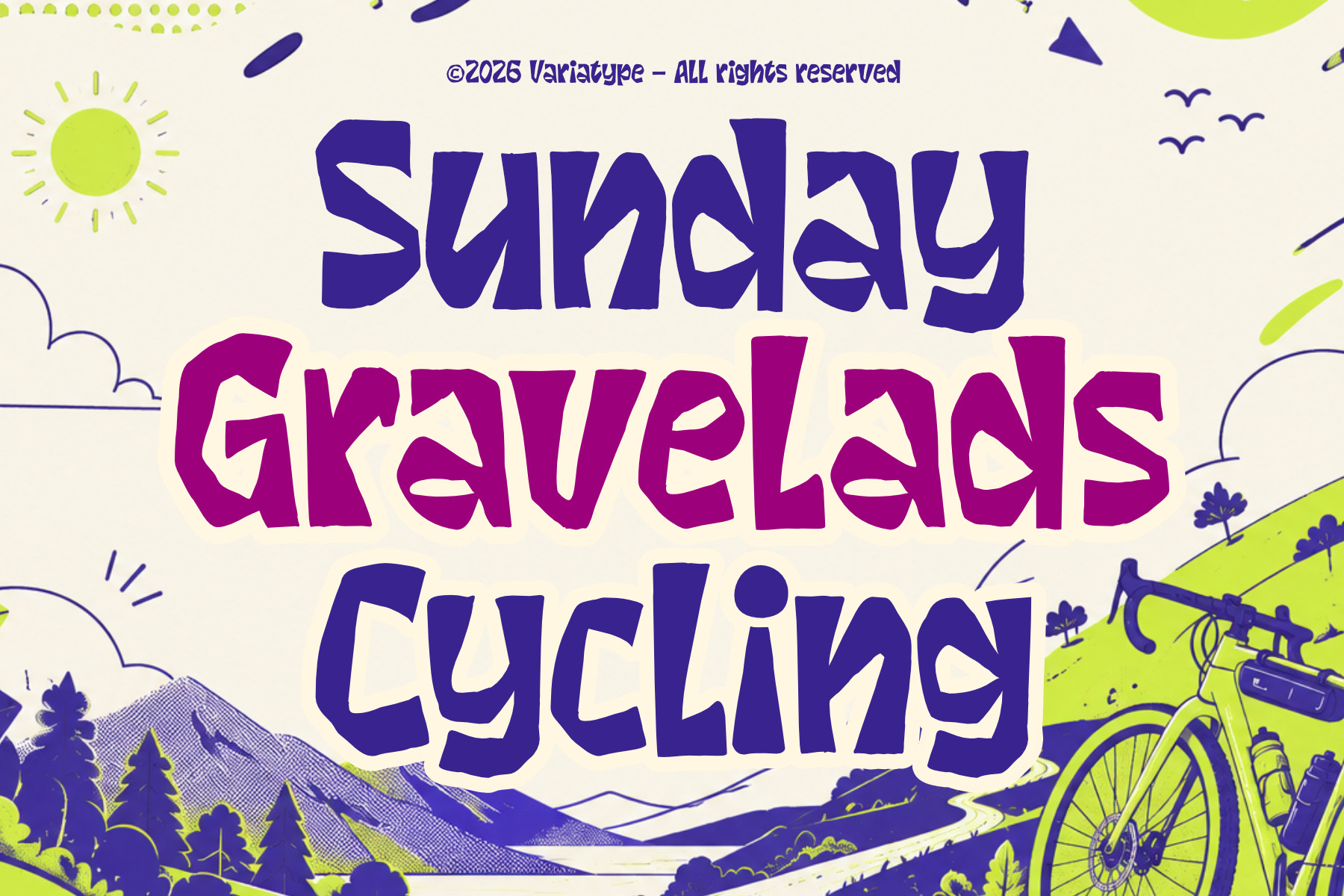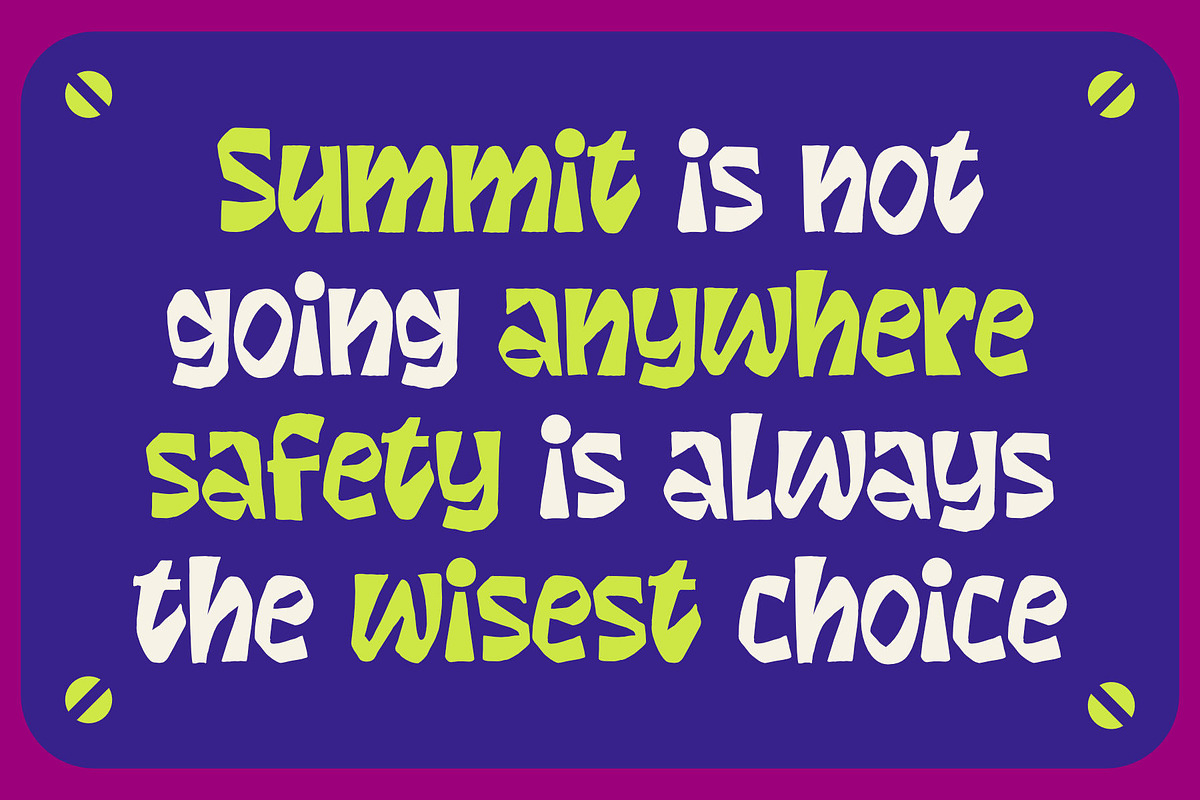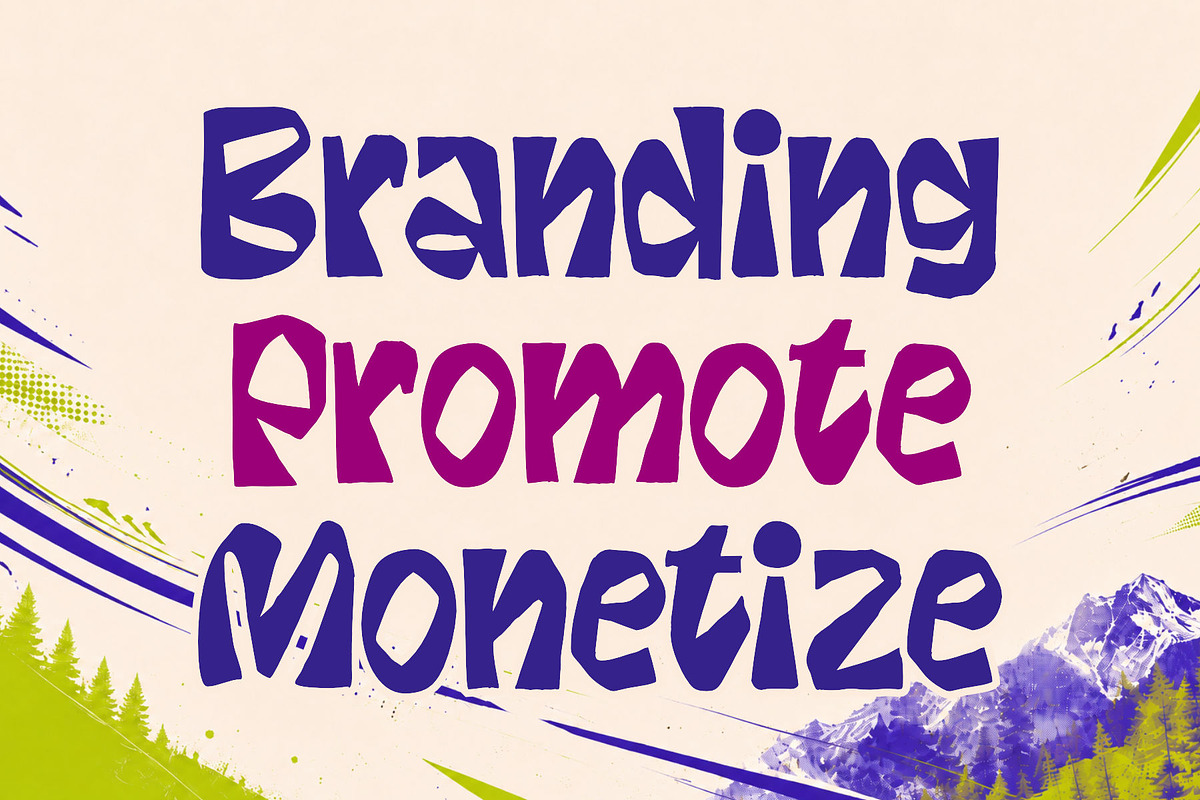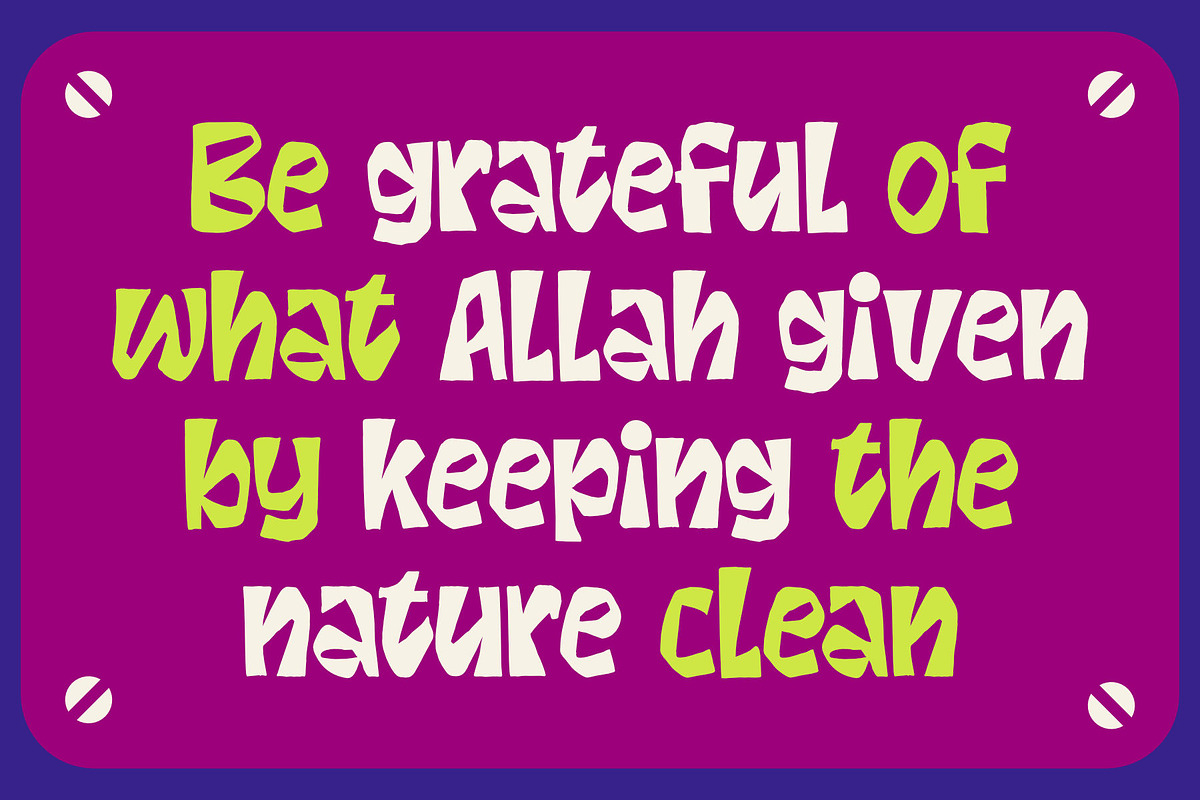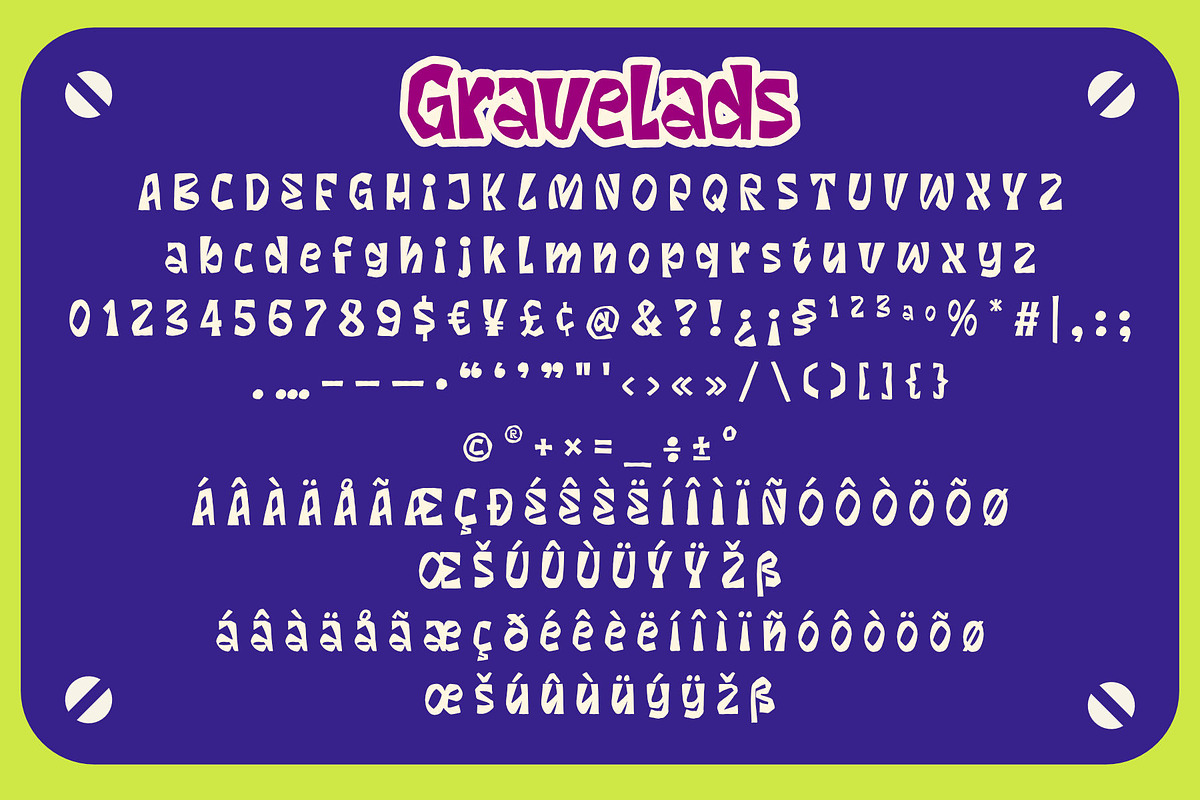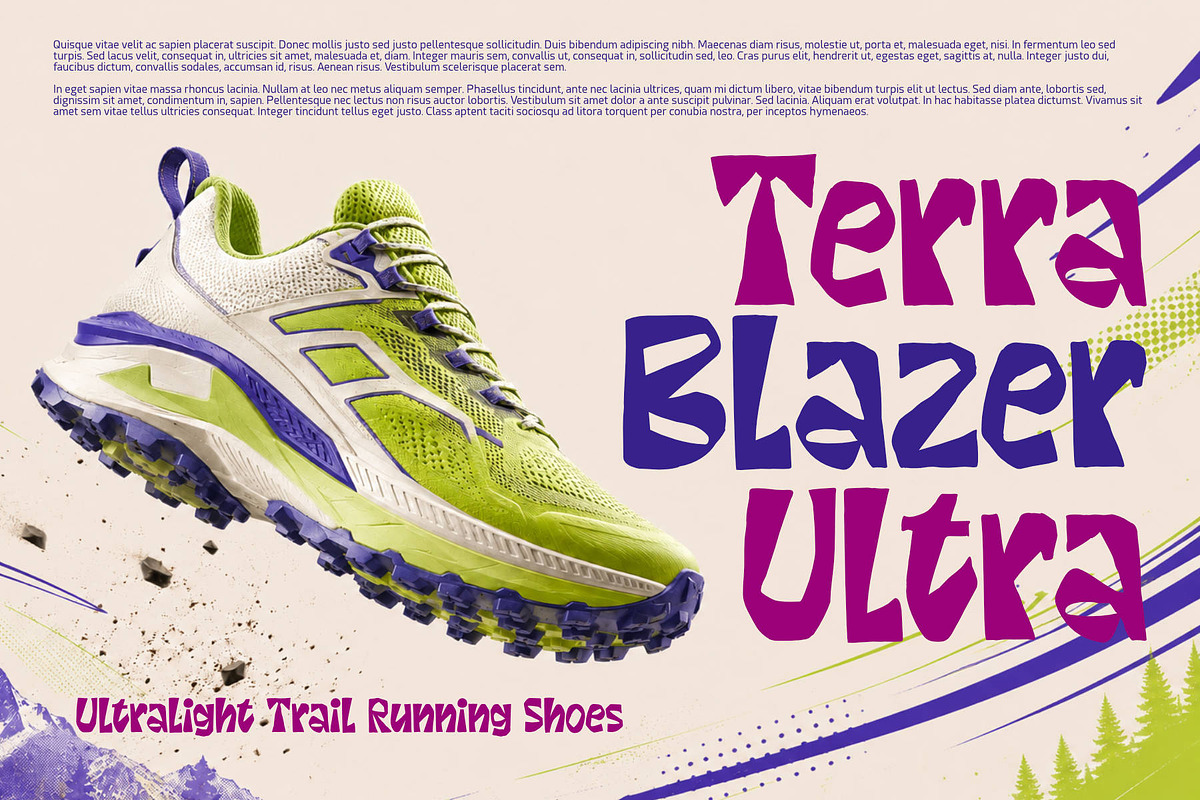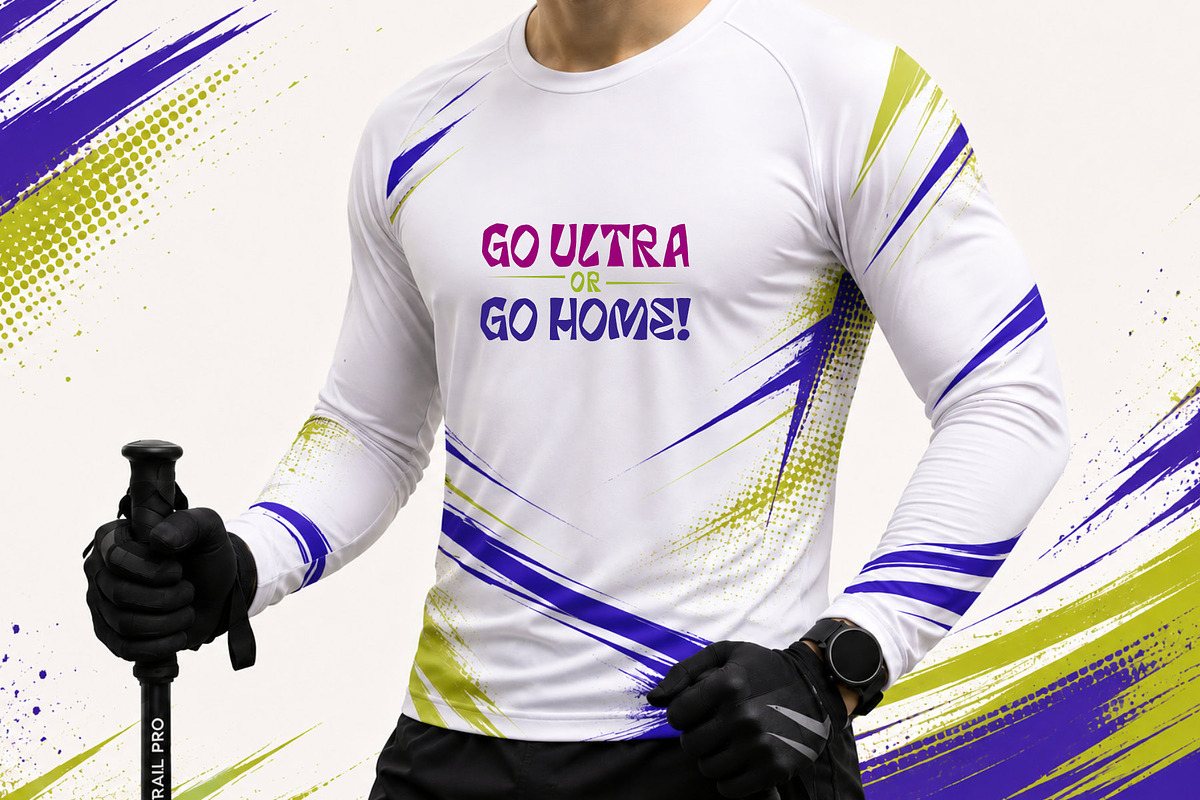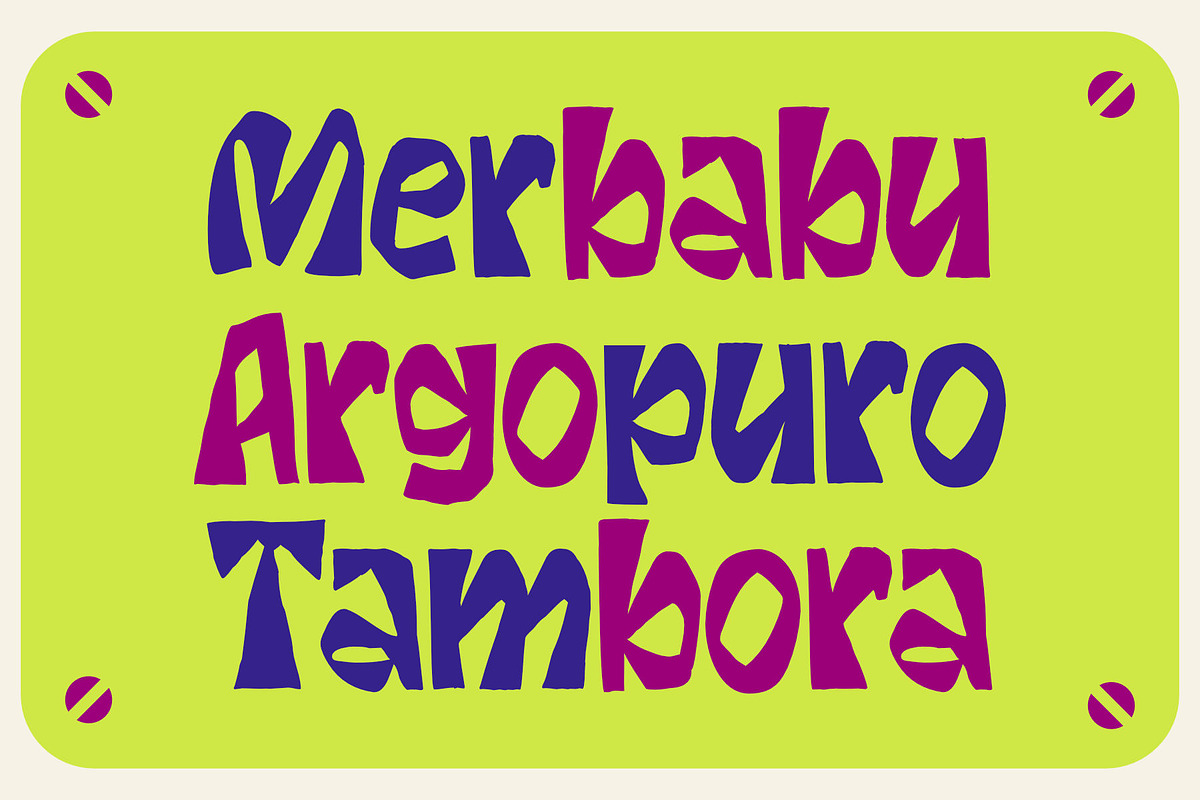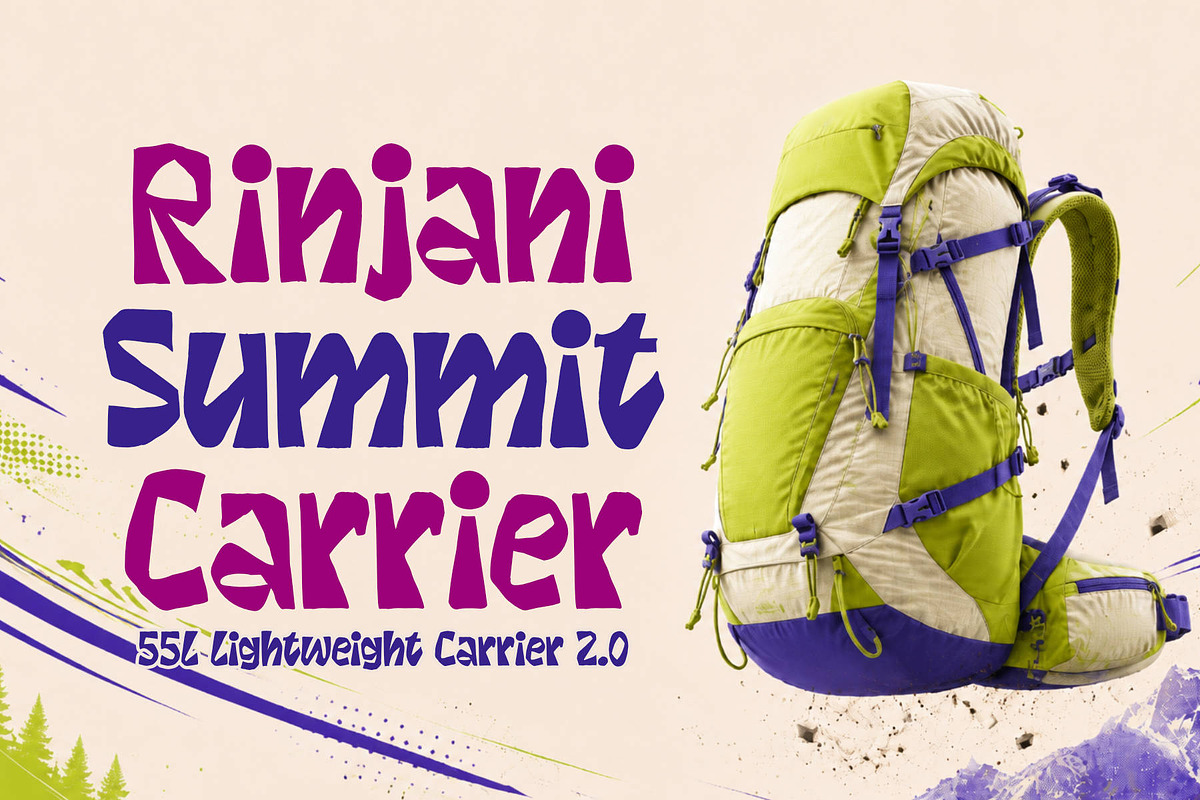
Gravelads – Adventure Display Font
Gravelads is a bold adventure display font created for branding agencies, outdoor companies, sports events, and lifestyle brands that want their visual identity to feel energetic, playful, and unmistakably adventurous. Its expressive, handcrafted letterforms bring a strong personality to logos, campaign headlines, apparel, packaging, posters, social media graphics, and event merchandise, making it especially effective for cycling, hiking, camping, travel, and active-lifestyle projects that need to stand out while remaining approachable and memorable.
FONT FEATURES
Additional Accents
68Languages
Kerning